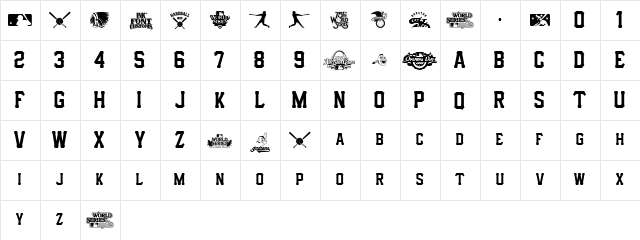
I.F.C. HARDBALL Regular
Design Context for I.F.C. HARDBALL Typeface
I.F.C. HARDBALL offers clean, dependable letterforms without strong stylistic allegiance, making it a practical choice for designers who need flexibility.